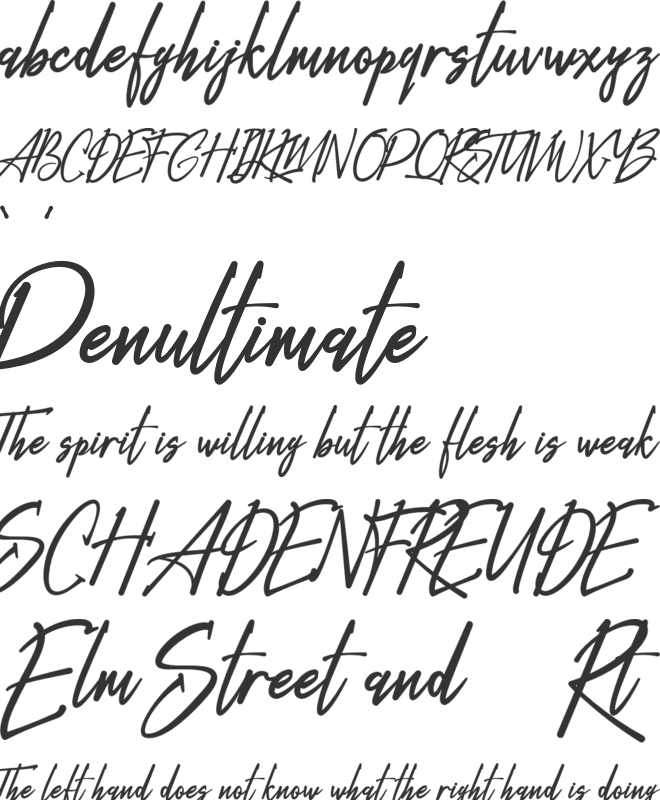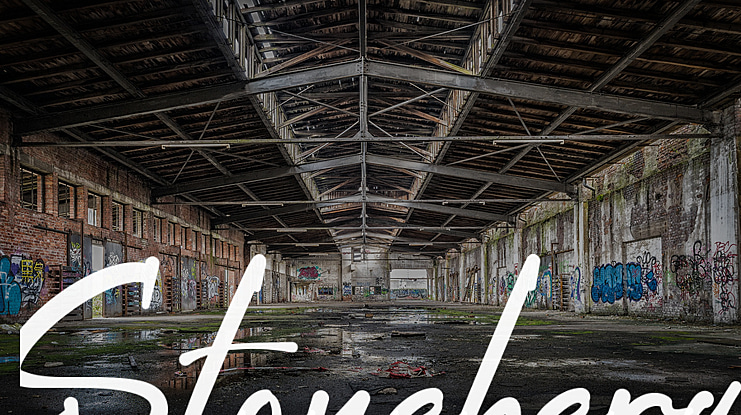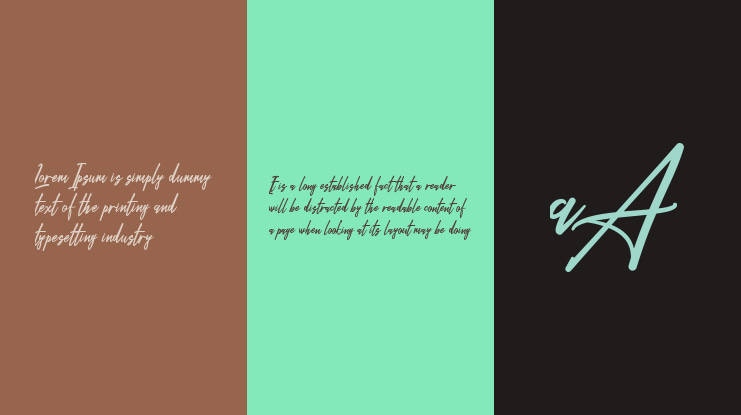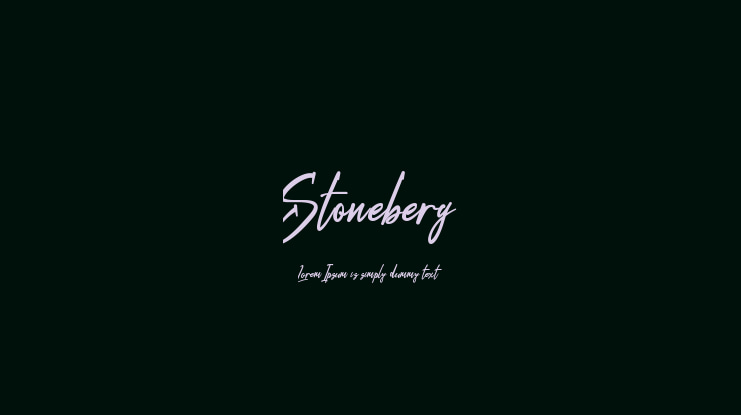
Stoneberg Font
Introducing Stoneberg. A strong handwritten signature font. Reflection from the young people, urban people. Include more than 400 glyphs, with many ligature and stylistic lowercase beginning and ending letters.This font is best suited for headlines all size. And suitable for invitations, logos, web pages, quotes, and many more. Explore your design with Stoneberg.